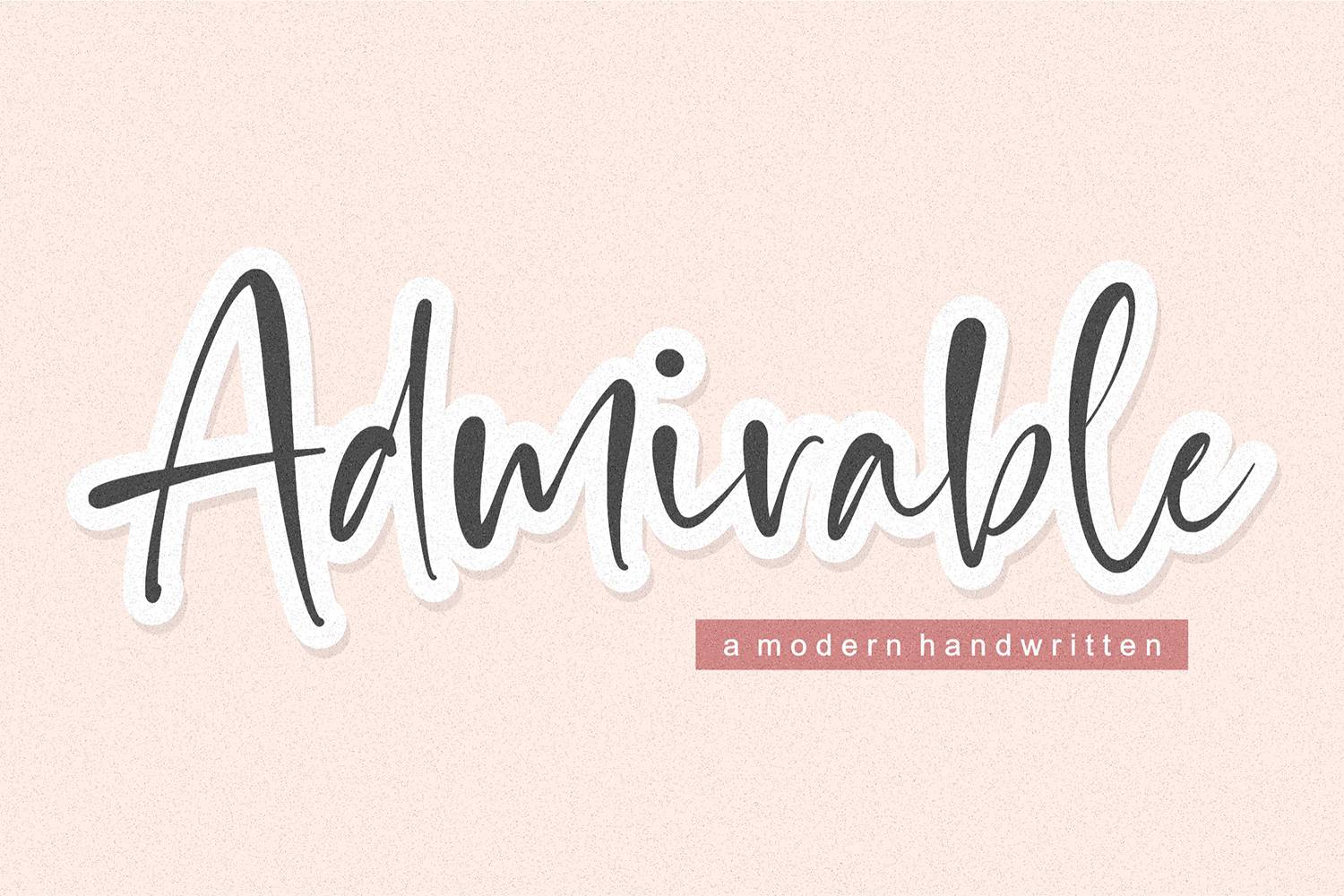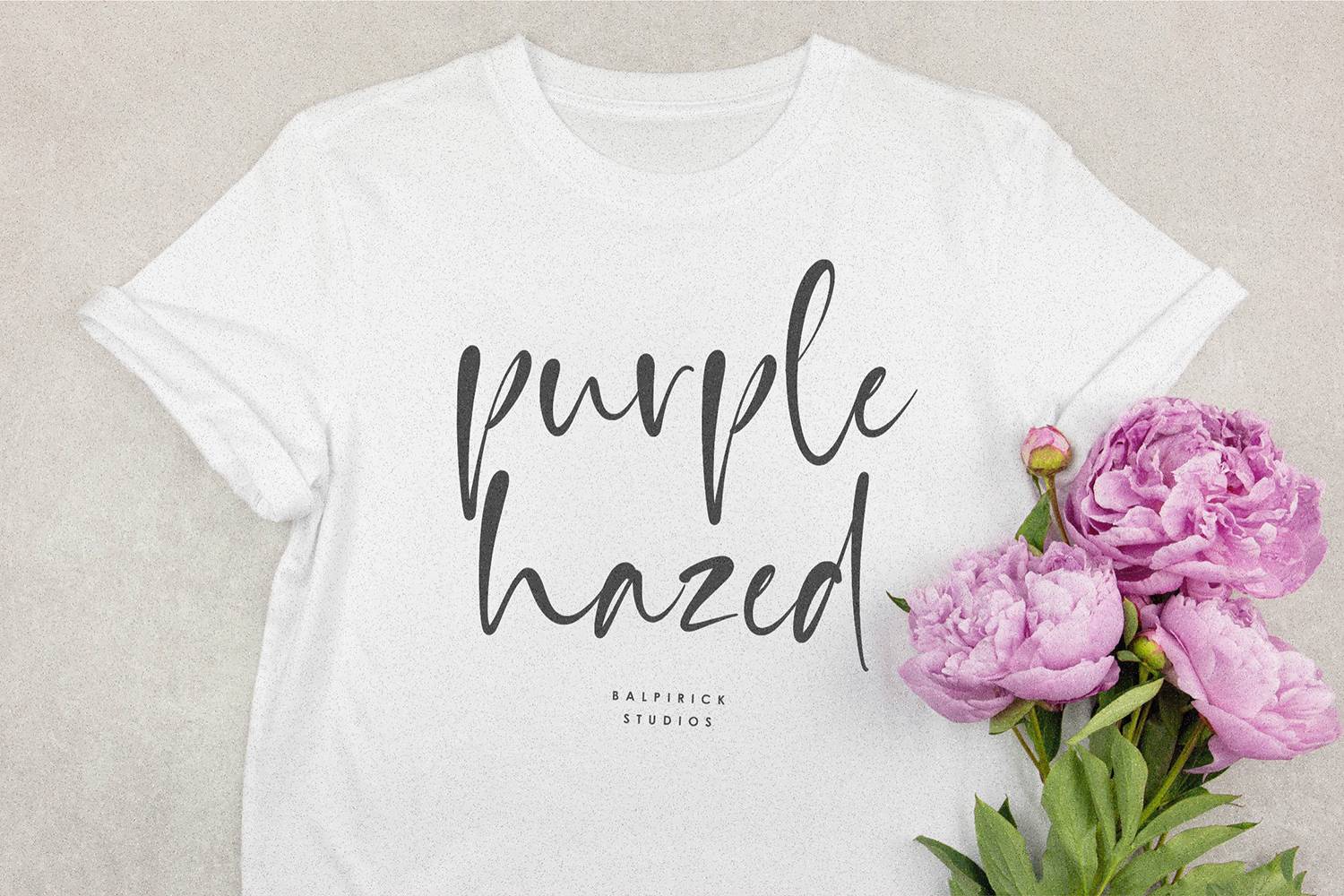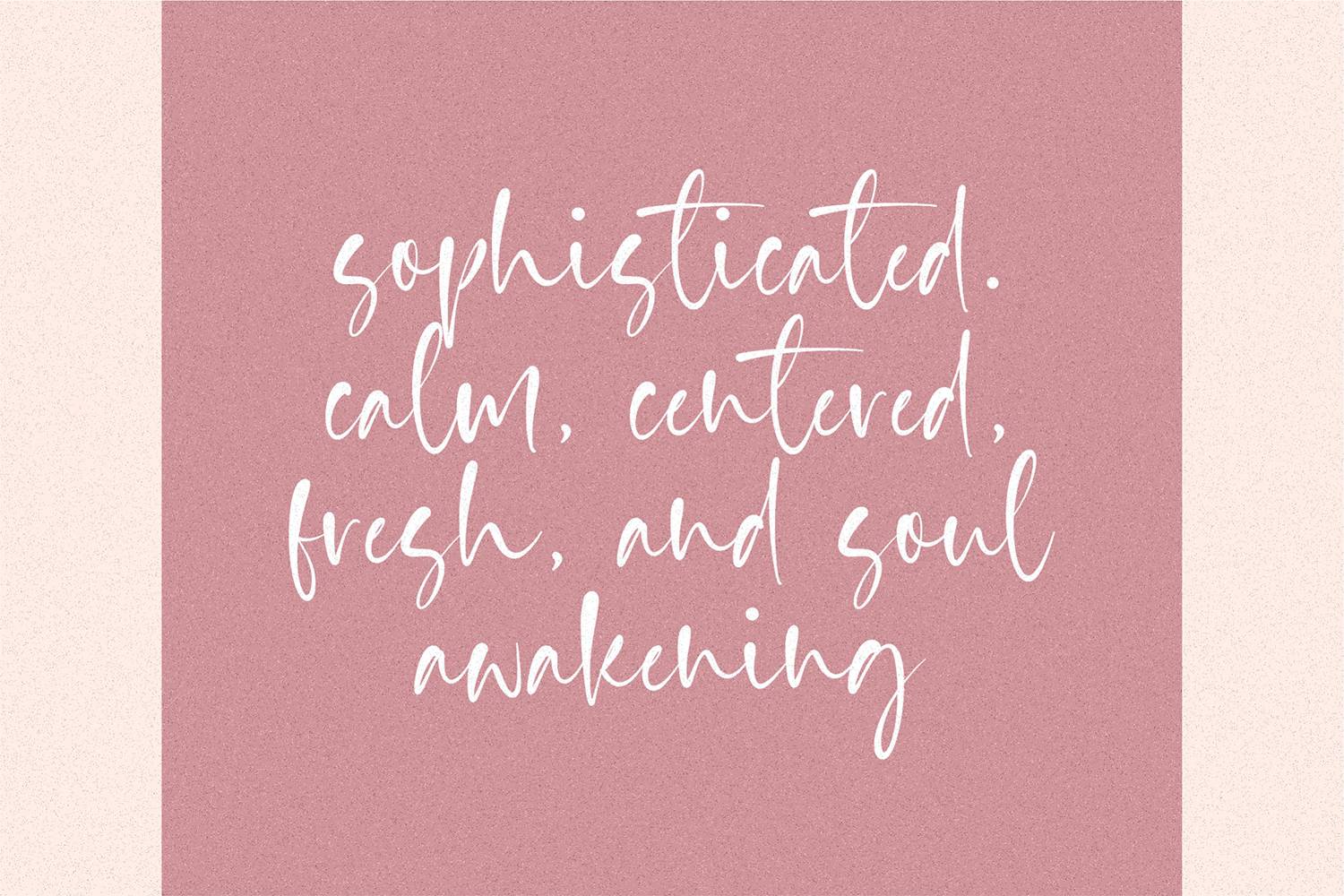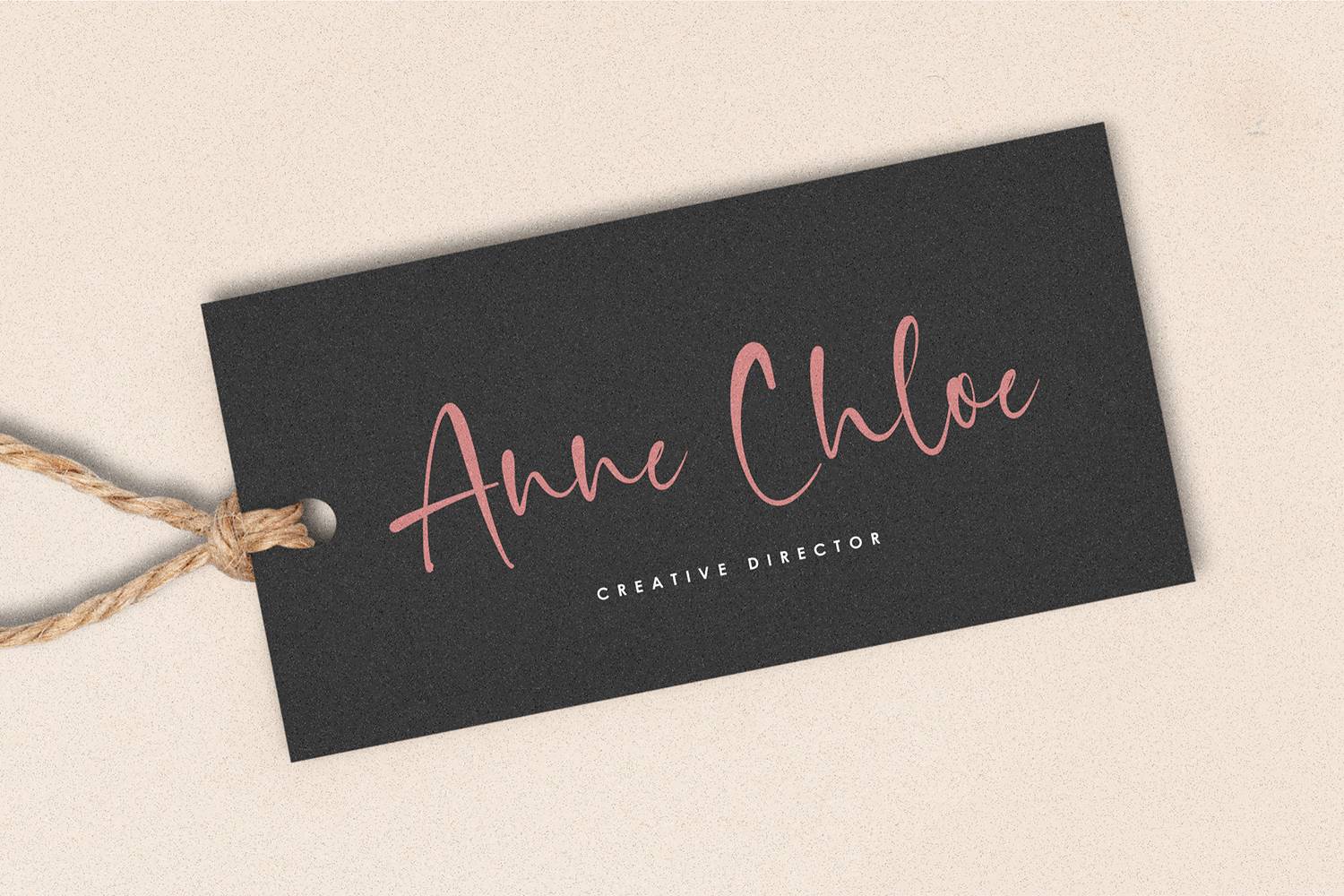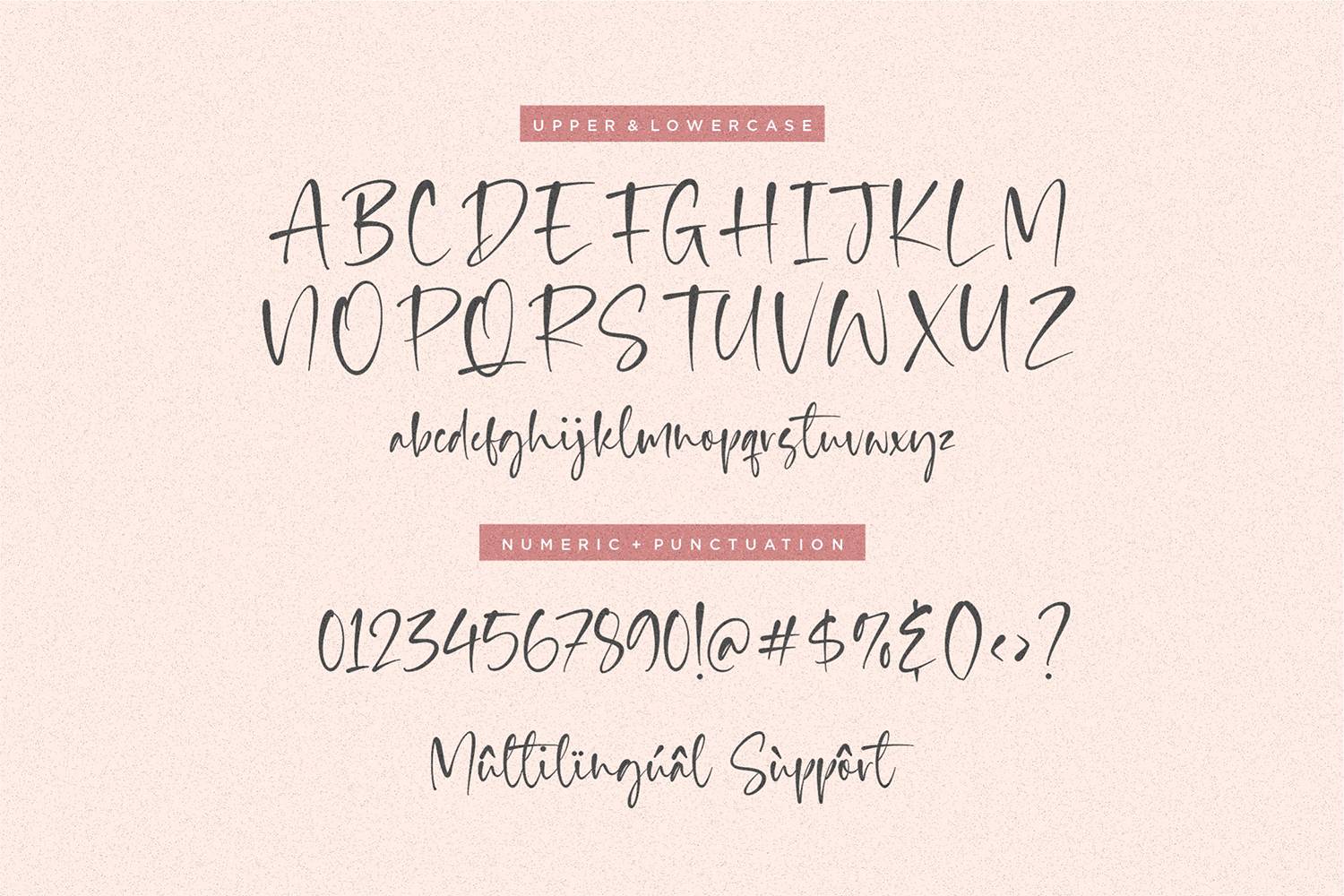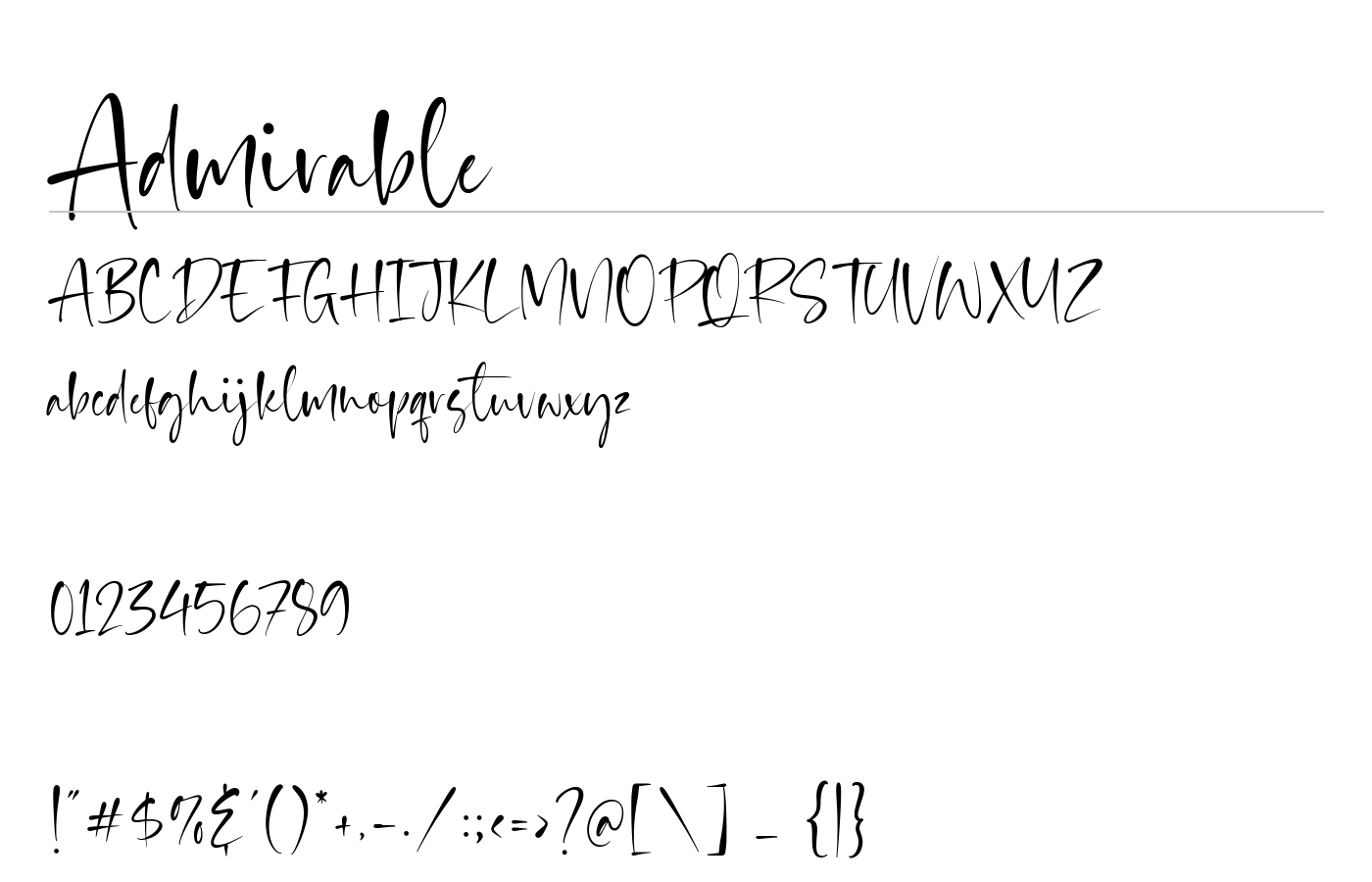
Admirable is a lively, modern handwritten script font with a casual yet elegant feel, featuring slender strokes and a natural flow that mimic authentic penmanship. Its tall x-height and slightly irregular letterforms give it a personal, approachable character, making it perfect for creative branding, invitations, and stylish editorial use where a touch of personality and warmth is desired.
Admirable Font
About Admirable Font